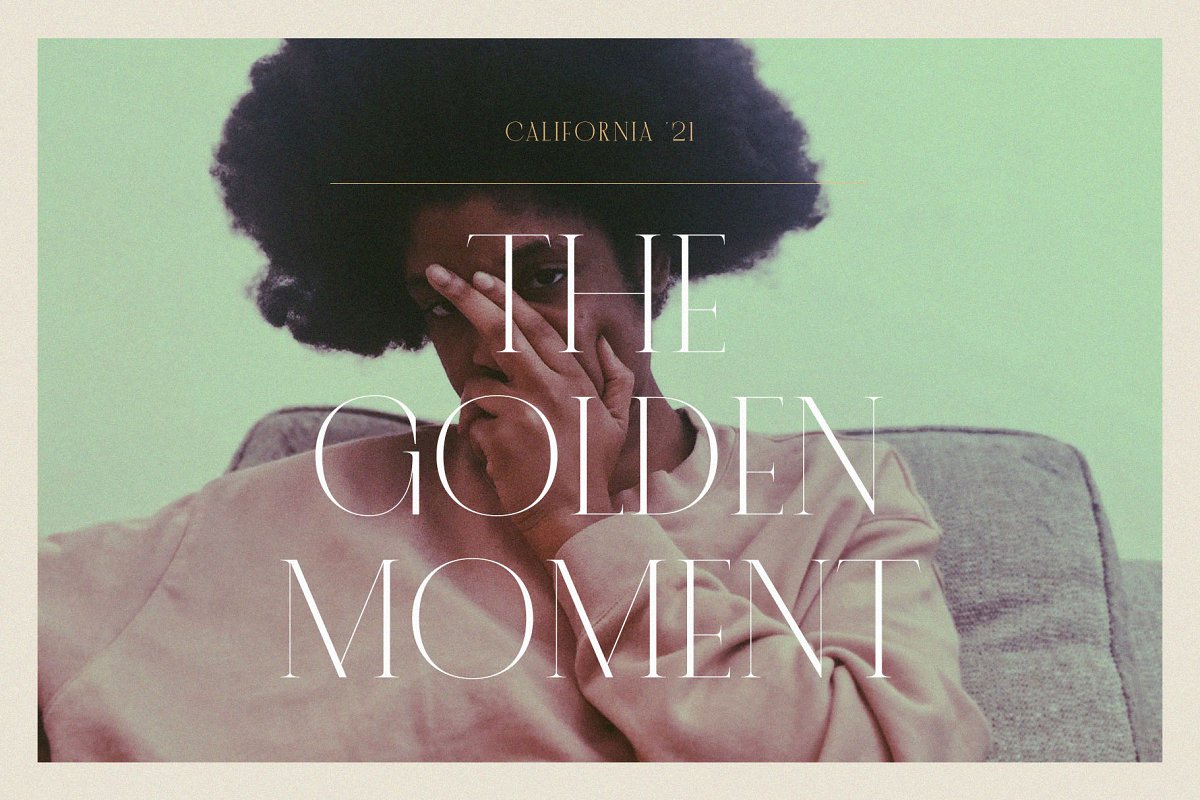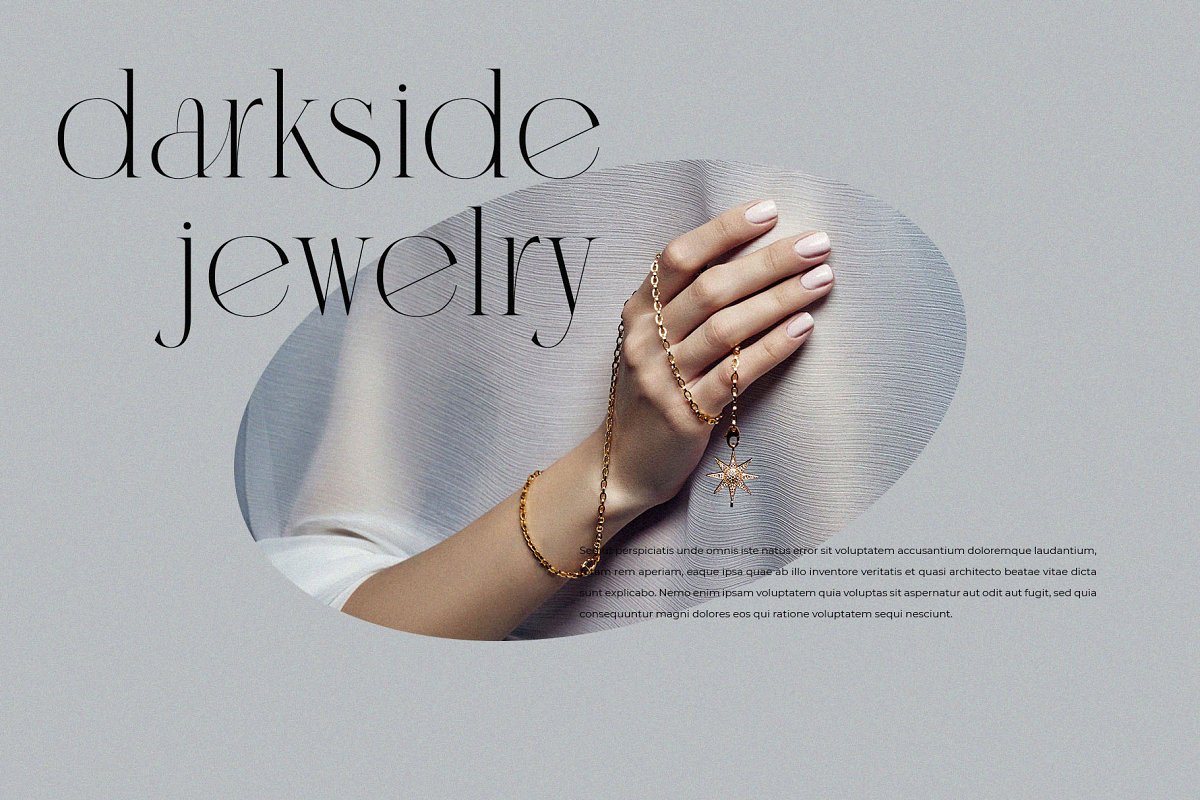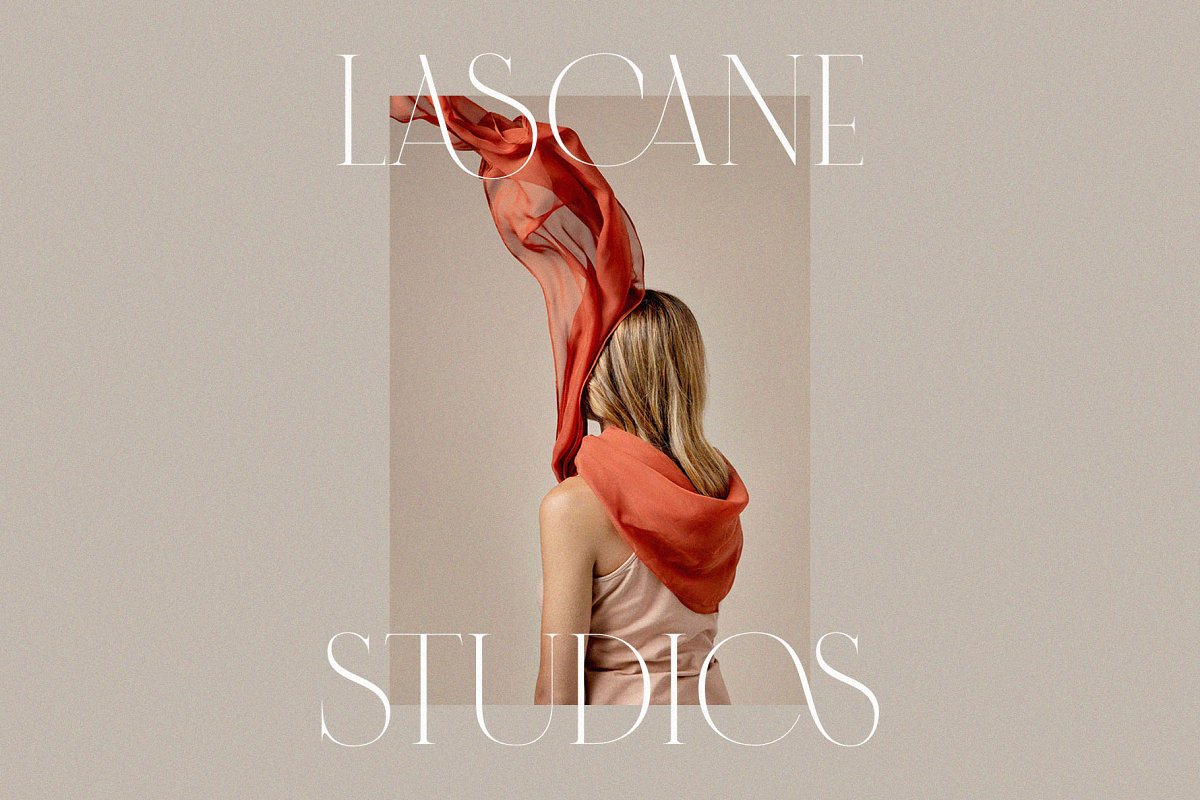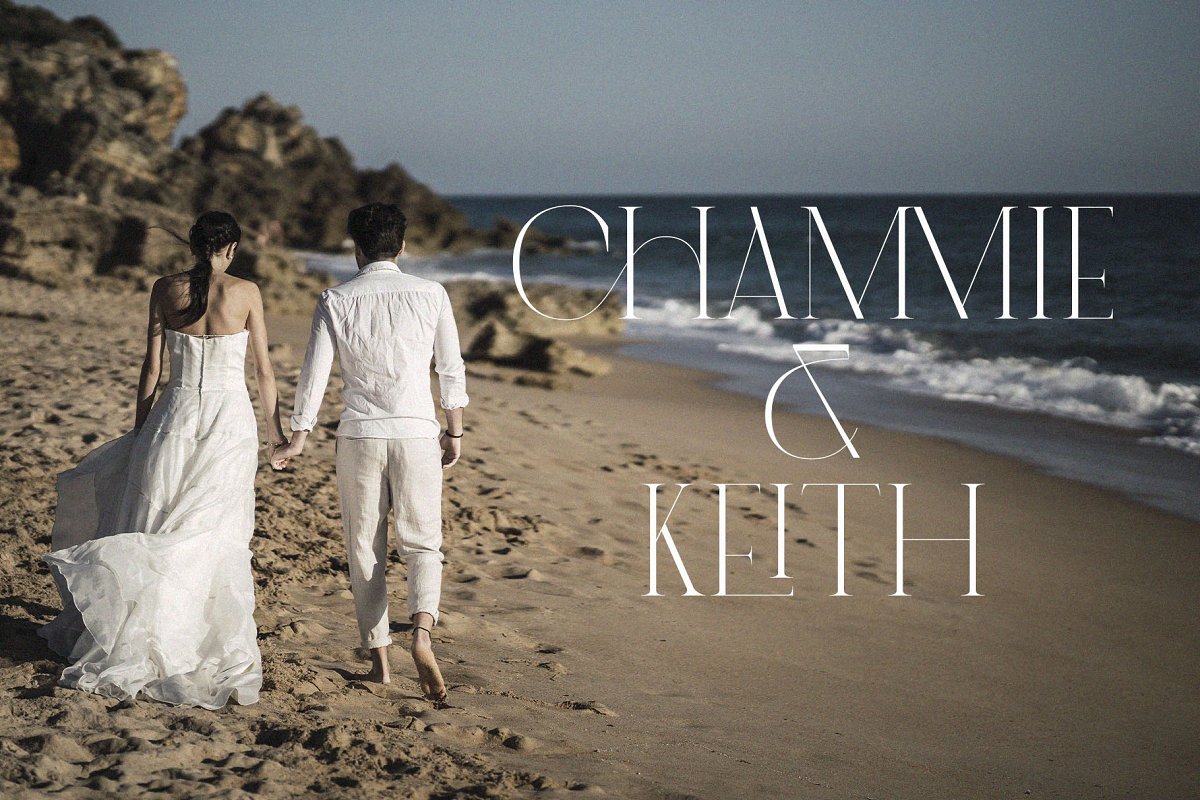
About the Cannia Ligature Typeface Font
Introducing our new Cannia, Modern ligature typeface with Unique, Classy and Stylish, Is perfect for branding, logos, invitation, master heads, and more, Arlita Features :LigaturesMultilanguageAlternatesWhat you get:Cannia OTFCannia TTFCannia WOFFIf there’s anything else you are unsure of feel free to pop me a message 🙂 That’s it! Have fun using Cannia Typeface!!!Feel free to follow, like and share